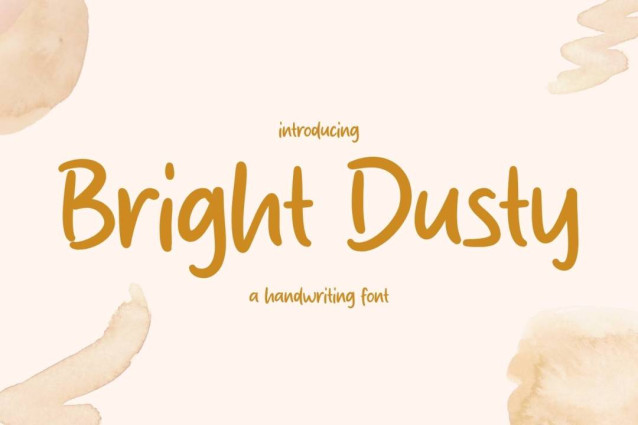
Bright Dusty Font
Bright Dusty Font is a simple and friendly handwritten font. Its natural and unique style makes it incredibly fitting to a large pool of designs. The only limit is your imagination!